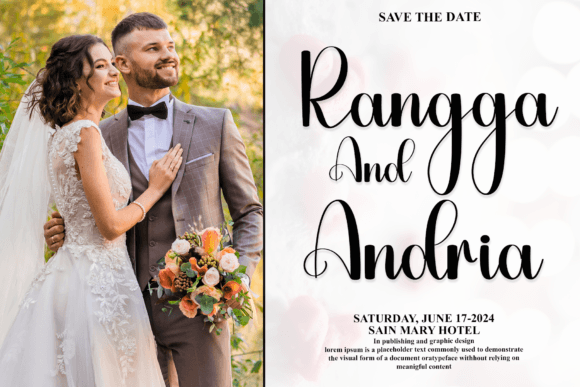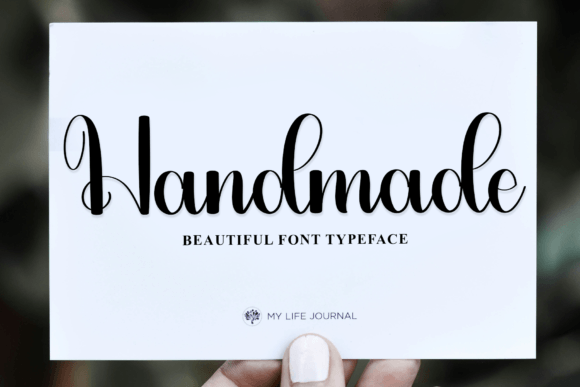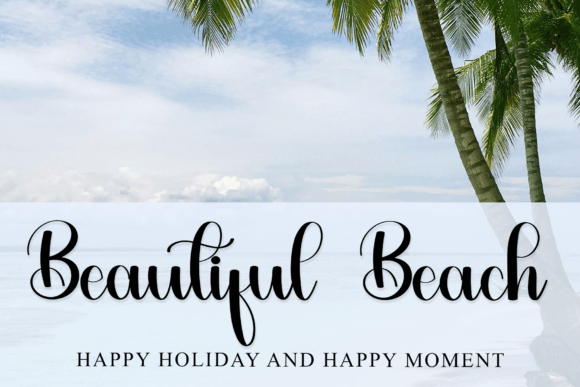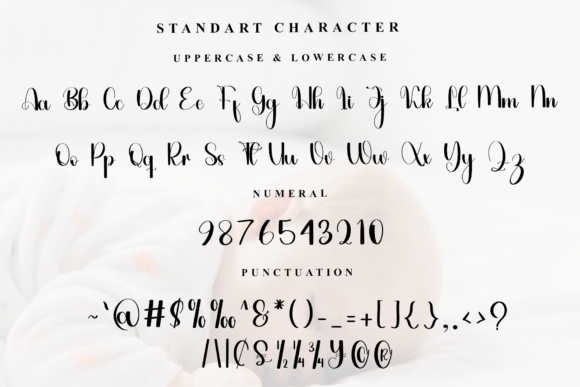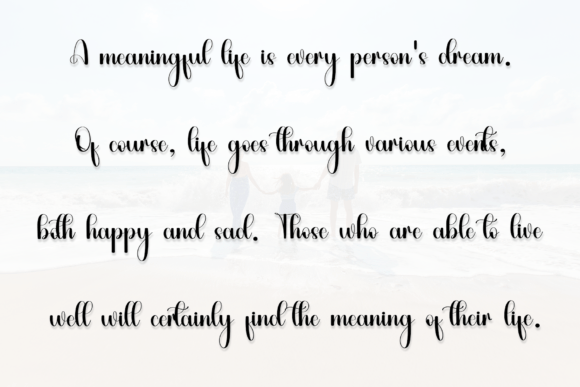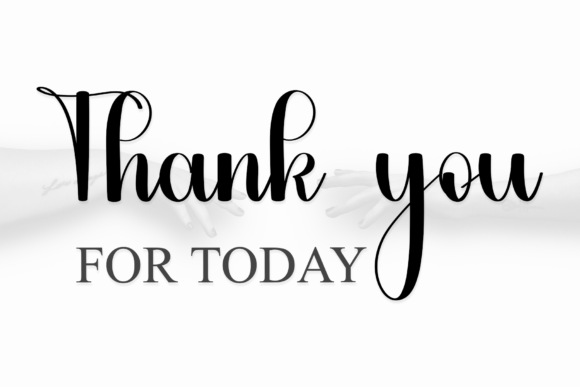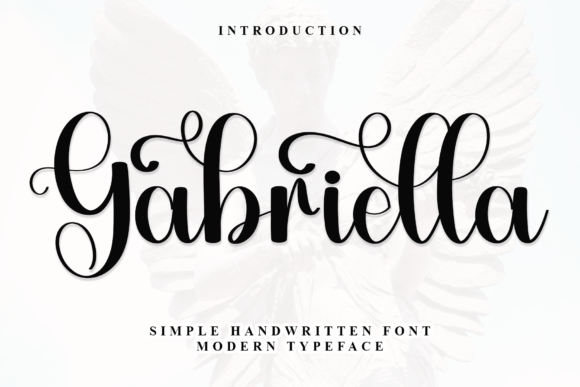
Discover the Charming Gabriella Font: Adding a Touch of Whimsy to Your Designs
Are you looking for a font that can add a personal touch to your designs? Look no further than the Gabriella font. This charming handwritten font is perfect for designers and crafters who want to infuse their projects with warmth and personality. In this article, we’ll explore the unique features of the Gabriella font and how it can elevate your designs.
The Unique Characteristics of Gabriella Font
Gabriella is a playful yet legible font that exudes a sense of handmade authenticity. Its natural strokes and irregularities give it a unique, organic feel that’s perfect for creating a personal connection with your audience. The font’s charming handwritten style makes it ideal for a variety of design projects, from greeting cards and invitations to branding and packaging.
Perfect for Greeting Cards and Invitations
Gabriella font is particularly well-suited for greeting cards and invitations. Its playful and whimsical style adds a touch of warmth and personality to any message, making it perfect for special occasions like birthdays, weddings, and holidays. Whether you’re designing a formal invitation or a casual greeting card, Gabriella font is sure to make your message stand out.
Adding a Touch of Whimsy to Your Branding
In addition to its use in greeting cards and invitations, Gabriella font is also perfect for branding and packaging. Its unique and playful style can help your brand stand out in a crowded market and create a lasting impression on your customers. Whether you’re designing a logo, label, or packaging, Gabriella font is sure to add a touch of whimsy and personality to your brand.
The Benefits of Using Gabriella Font
So why choose Gabriella font for your designs? Here are just a few benefits of using this charming handwritten font:
- Unique and Playful Style: Gabriella font has a unique and playful style that’s sure to make your designs stand out.
- Handmade Authenticity: The font’s natural strokes and irregularities give it a handmade feel that’s perfect for creating a personal connection with your audience.
- Legible and Readable: Despite its playful style, Gabriella font is highly legible and readable, making it perfect for use in a variety of design projects.
- Versatile: Gabriella font is versatile and can be used in a variety of design projects, from greeting cards and invitations to branding and packaging.
Tips for Using Gabriella Font
Here are a few tips for using Gabriella font in your designs:
- Use it for Headlines and Titles: Gabriella font is perfect for use in headlines and titles, where its playful style can really shine.
- Pair it with Other Fonts: Gabriella font pairs well with other fonts, so don’t be afraid to experiment with different combinations.
- Use it in Combination with Images: Gabriella font looks great in combination with images, so consider using it in conjunction with photographs or illustrations.
In conclusion, Gabriella font is a charming handwritten font that’s perfect for designers and crafters who want to add a touch of whimsy to their designs. Its unique and playful style, combined with its handmade authenticity and legibility, make it a versatile font that can be used in a variety of design projects. Whether you’re designing greeting cards, invitations, or branding materials, Gabriella font is sure to make your message stand out.
Get Creative with Gabriella Font
So why not give Gabriella font a try? With its charming style and versatile uses, it’s the perfect font for designers and crafters who want to add a personal touch to their designs. Whether you’re a seasoned designer or just starting out, Gabriella font is sure to inspire your creativity and help you create beautiful, unique designs.